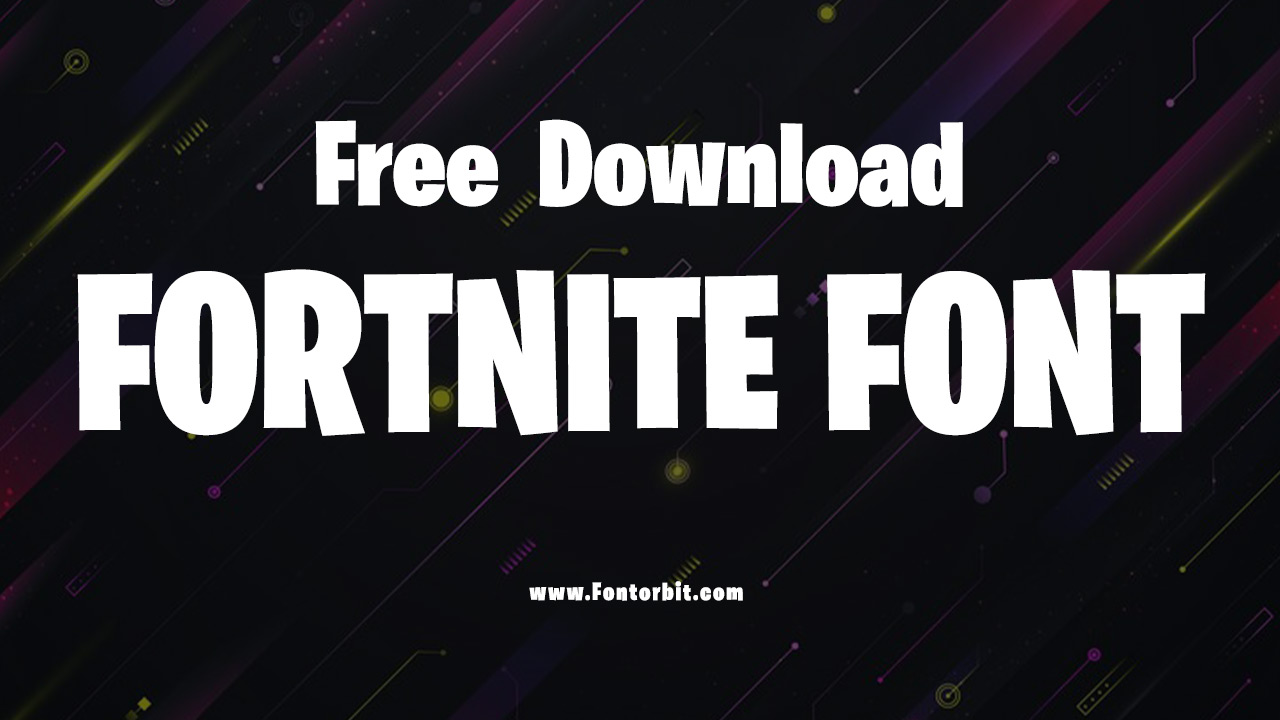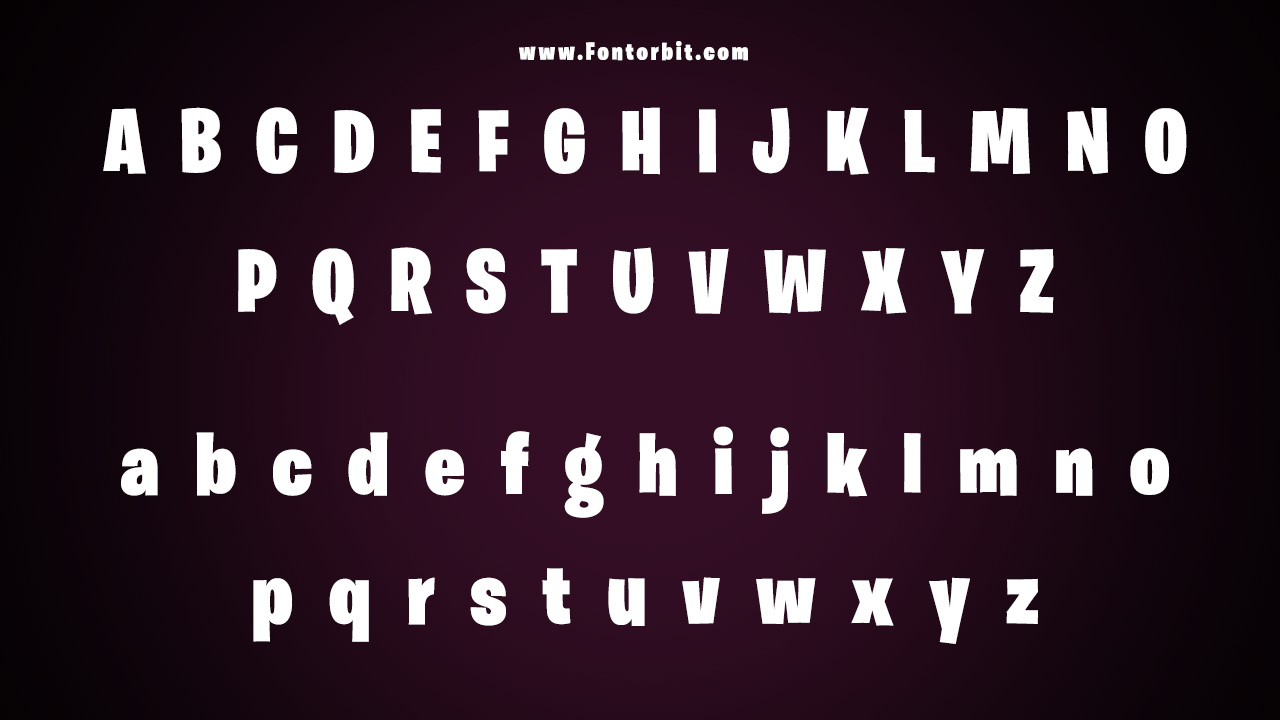
The Fortnite Font, associated with the popular video game Fortnite developed by Epic Games, is a visually striking typeface known for its bold and dynamic design.
This font is closely related to Burbank Big Condensed Black, a geometric sans-serif typeface designed by Tal Leming and published by Type Network. It combines a modern aesthetic with a distinctive style that fits the high-energy vibe of the game.
This custom typeface is designed to capture the lively and engaging spirit of the Fortnite brand. Its distinctive, bold style enhances its visual impact, making it suitable for various high-visibility applications.
The Fortnite Font is ideal for game-related graphics, promotional materials, and branded content, ensuring your design stands out with a unique and energetic flair.
The Fortnite Font excels in creating bold and memorable designs that align with the energetic and fun nature of the Fortnite game. Its distinctive features make it perfect for applications where a strong, dynamic aesthetic is desired.
The Fortnite Font’s bold and dynamic style makes it an excellent choice for impactful and prominent applications. Its design, inspired by Burbank Big Condensed Black, captures attention and adds a unique touch to various projects, whether for promotional use or branding.
The Fortnite Font is a bold, dynamic typeface closely related to Burbank Big Condensed Black. It is designed to capture the energetic and engaging spirit of the Fortnite video game and is ideal for high-visibility applications.
Use Fortnite Font in larger sizes to fully showcase its bold and dynamic features. It works best for headlines, promotional graphics, and other display applications.
The Fortnite Font features a bold, geometric design that aligns with the energetic aesthetic of the Fortnite game. Its unique and eye-catching style is ideal for creating high-impact visuals.
Use the Fortnite Font to create striking game graphics, impactful promotional materials, and standout branded content. Its bold and dynamic design makes it perfect for applications where a strong and energetic presence is desired.
The Fortnite Font primarily supports Latin-based languages, making it ideal for English text and other languages that use the Latin alphabet, particularly in display and promotional contexts.